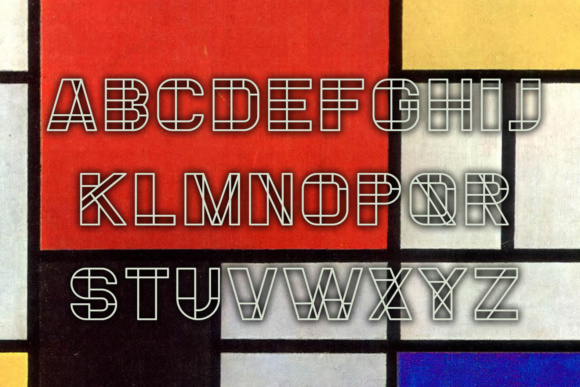
Unlock the Power of Creativity with Essere Font
Have you ever been working on a design project, pouring your heart and soul into it, only to feel like something is missing? Maybe you’ve tried every font, every color scheme, and every layout, but nothing seems to click. That’s where the Essere Font comes in – a versatile and stylish multiline font family designed to elevate your creative work to the next level.
Perfect for posters, banners, prints, and a wide range of other applications, the Essere Font offers a unique blend of modernity and sophistication. Whether you’re a seasoned designer or just starting out, this font is a valuable addition to your toolkit. With its clean lines, elegant curves, and endless possibilities, the Essere Font is the perfect way to bring your creative vision to life.
Key Features of Essere Font
- Font Family: Essere Font is a modern sans-serif font family with 12 styles, including 6 weights and their corresponding italics.
- Font Size: The font is designed to be highly legible at a wide range of sizes, from 8pt to 24pt, making it suitable for various applications.
- Unique Characteristics: Essere Font features a unique blend of modern and geometric elements, with subtle rounded corners and a clean, minimalist aesthetic.
Essere Font Review
Essere Font is a stylish, modern sans-serif typeface that shines in several areas.
- ✨ Unique design aesthetic: Essere Font has a distinctive look that sets it apart from other sans-serif fonts. Its bold, geometric shapes and clean lines make it perfect for modern branding and design projects.
- ✨ High legibility: Despite its modern design, Essere Font is highly legible, making it suitable for body text and longer passages.
- ✨ Versatility: Essere Font comes in a range of weights and styles, from light to bold, allowing designers to choose the perfect version for their project.
- ⚠️ Limited character set: Essere Font’s character set is not as extensive as some other fonts, which may be a drawback for designers who need to work with non-Latin scripts.
- ⚠️ Not suitable for small text: Due to its bold design, Essere Font may not be the best choice for small text or fine print.
Overall, Essere Font is a solid choice for designers looking for a modern, stylish sans-serif typeface. While it may not be perfect for every project, its unique design aesthetic and high legibility make it a great addition to any designer’s toolkit.
- Use the font in combination with other elegant fonts to create a sophisticated look.
- Use the font’s advanced features, such as ligatures and swashes, to add a touch of elegance to your design.
Essere Font is commonly used in:
- Formal event invitations and promotional materials.
- Choose a beautiful, high-resolution image of a botanical garden or a romantic landscape as the background.
- Use Essere Font to add the invitation details, such as the date, time, and location.
- Combine the font with intricate illustrations or watercolor elements to add a whimsical touch.
- Pair the font with a delicate floral pattern or a lace design to add a touch of romance.
- Use a soft, pastel color palette to match the whimsical and dreamy atmosphere.
- Use Essere Font as the primary font for the brand’s logo and typography.
- Combine the font with a modern and sleek design style to convey a sense of luxury and sophistication.
- Use a high-end color palette, such as navy blue, gold, or silver, to match the luxury brand’s image.
- Pair the font with a minimalist design style to emphasize the luxury brand
Q: What is Essere Font and what type of font is it?
Essere Font is a high-quality, modern sans-serif typeface designed for digital use. It is optimized for screens and supports a wide range of languages, making it an ideal choice for web design, mobile apps, and digital publishing.
Creative Project Ideas Using Essere Font
Create a dreamy and romantic atmosphere with Essere Font in your wedding invitations. This elegant font is perfect for adding a touch of sophistication to your special day.
Create a sophisticated and elegant brand identity with Essere Font. This font is perfect for luxury brands that want to convey a sense of refinement and sophistication.